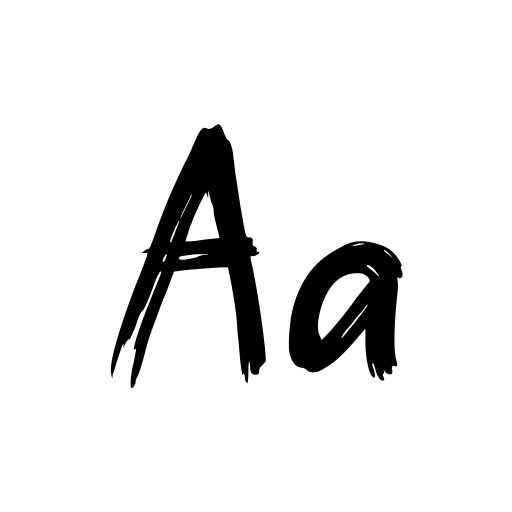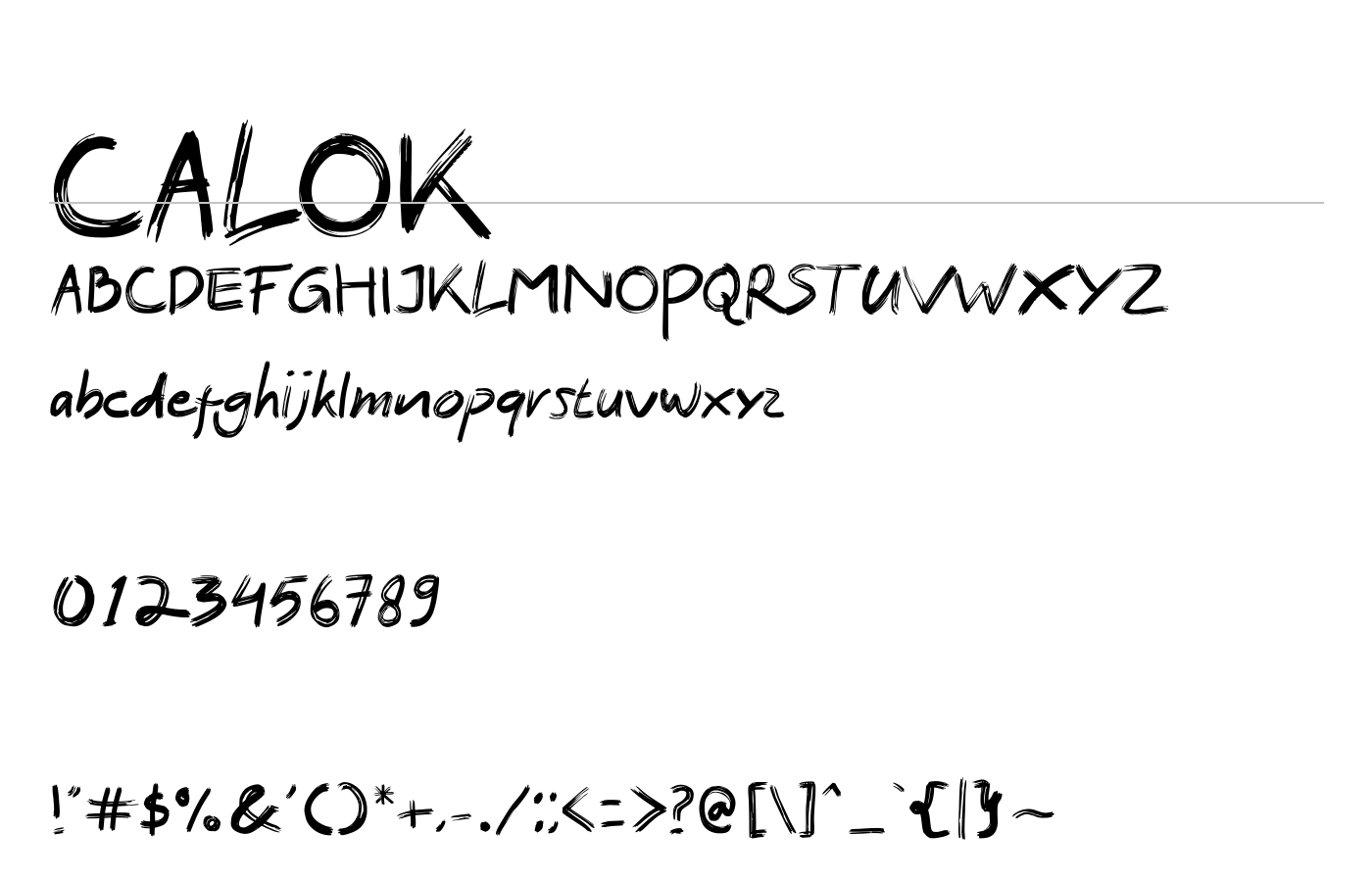
CALOK is a bold, hand-drawn sans serif font with a rough, brushstroke texture that gives it a dynamic and artistic feel. Its irregular letterforms and casual style make it perfect for creative, playful, and energetic designs like posters, branding, and informal headlines. This font stands out with its unique, expressive personality, making it ideal for projects that want to convey spontaneity and creativity.
CALOK Font
About CALOK Font